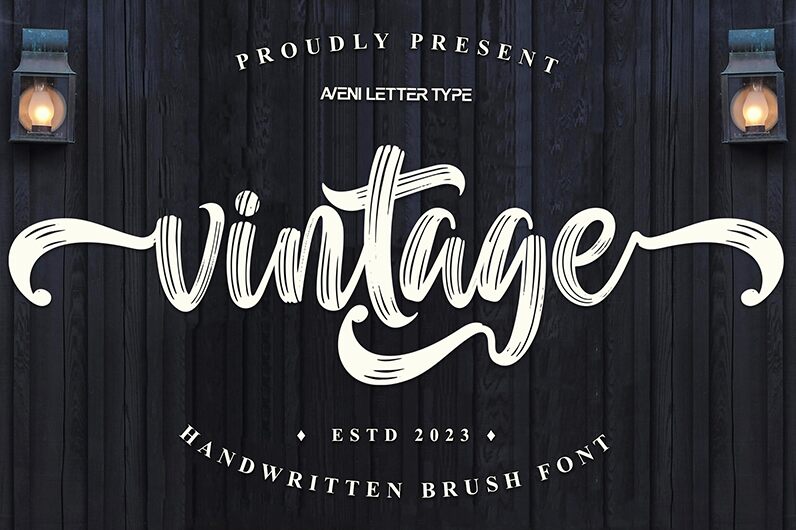
Vintage Brush font by Aveni Letter Type brings handwritten brush strokes to a digital format. The free font is bold, flowing, dynamic, artistic, and speaks with casual elegance. Enjoy its high contrast letters that revive the retro style vibe at many angles.
All your design ideas can turn into beautiful creations with this resource added to your fonts collection. Write notes, titles, headlines, quotes for posters and typography art prints among other branding projects for print or digital applications.